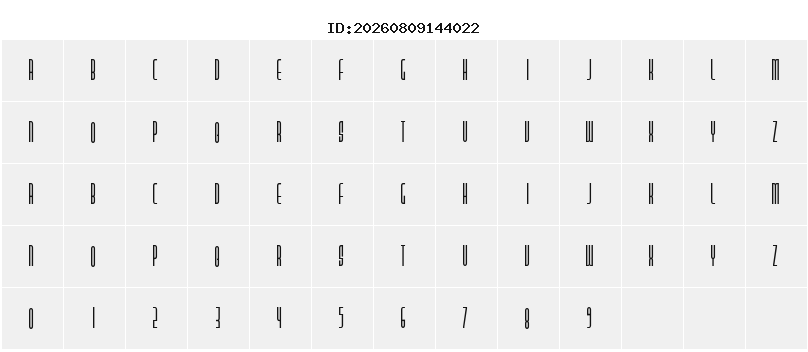
• Font Name: Pasta Palazzo
• Full Font Name: Pasta Palazzo
• Manufacturer: Michael Brandonisio
About Pasta Palazzo.ttf
Pasta Palazzo.ttf is a modern, elegant sans-serif font designed for ultimate readability and visual harmony. Perfect for branding, headlines, web design, and print materials.